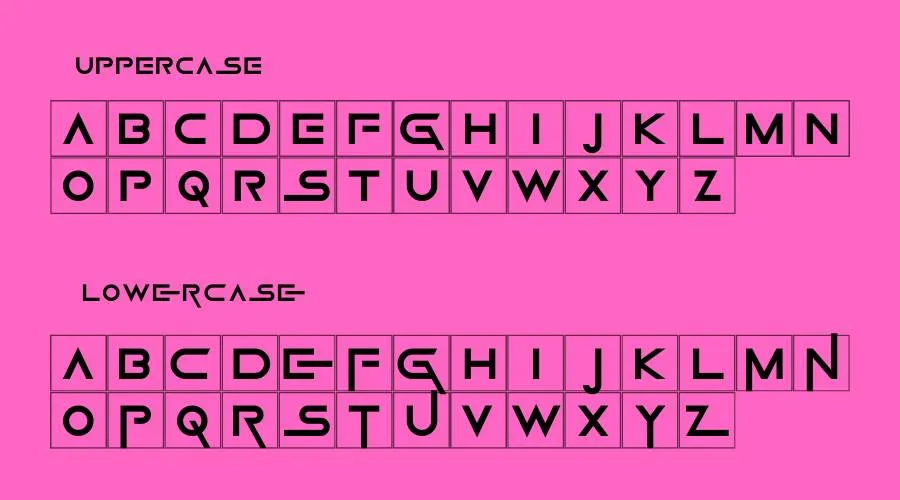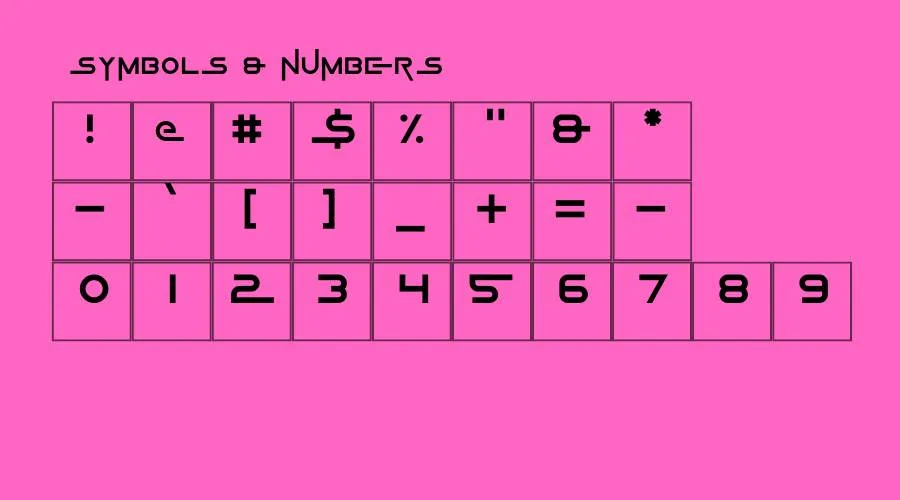
Squid Game Font
About Squid Game Font
Darrell Flood created the Squid Game Font this typeface is often used to create a stunning and readable design. It can be used anywhere where you want to create a new design.
As well as having a readable texture and a unique appearance, this typeface is attractive. And is perfect for logos, branding projects, home decor, and all sorts of other lovely ventures that require a beautiful look. You can use this font to combine with another typeface such as donrees claws font.
As well as branding projects, houseware designs, packaging, or even simply as an attractive text overlay on any background image, the typeface is suitable for all types of projects. The text style may be an awesome choice for any plan that needs an advanced and modern textual style.
Is Squid Game Font great to use?
This typeface is perfect for advertisements, site layouts, social media posts, brands, cities, cards, and a bounty of plans.
Does Squid Game Font have great readability?
The Squid Game typeface has incredible worth. It is a flexible textual style that has the clarity to view from a distance and it can be utilized for numerous purposes.